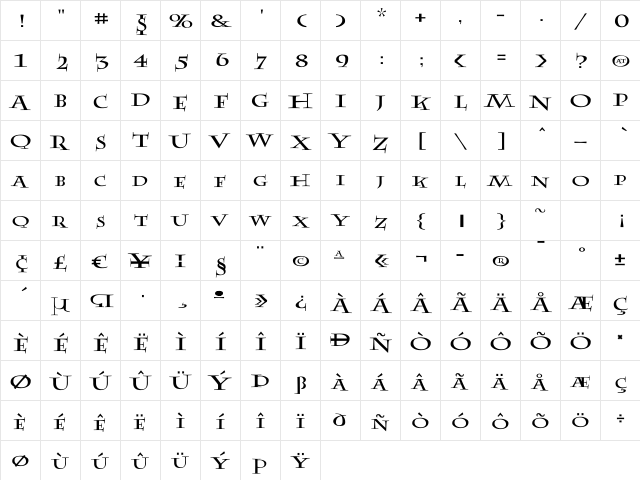
AbleNew Regular
Design Context for AbleNew Typeface
AbleNew is a composed and adaptable typeface that performs quietly and consistently across a wide range of design contexts.